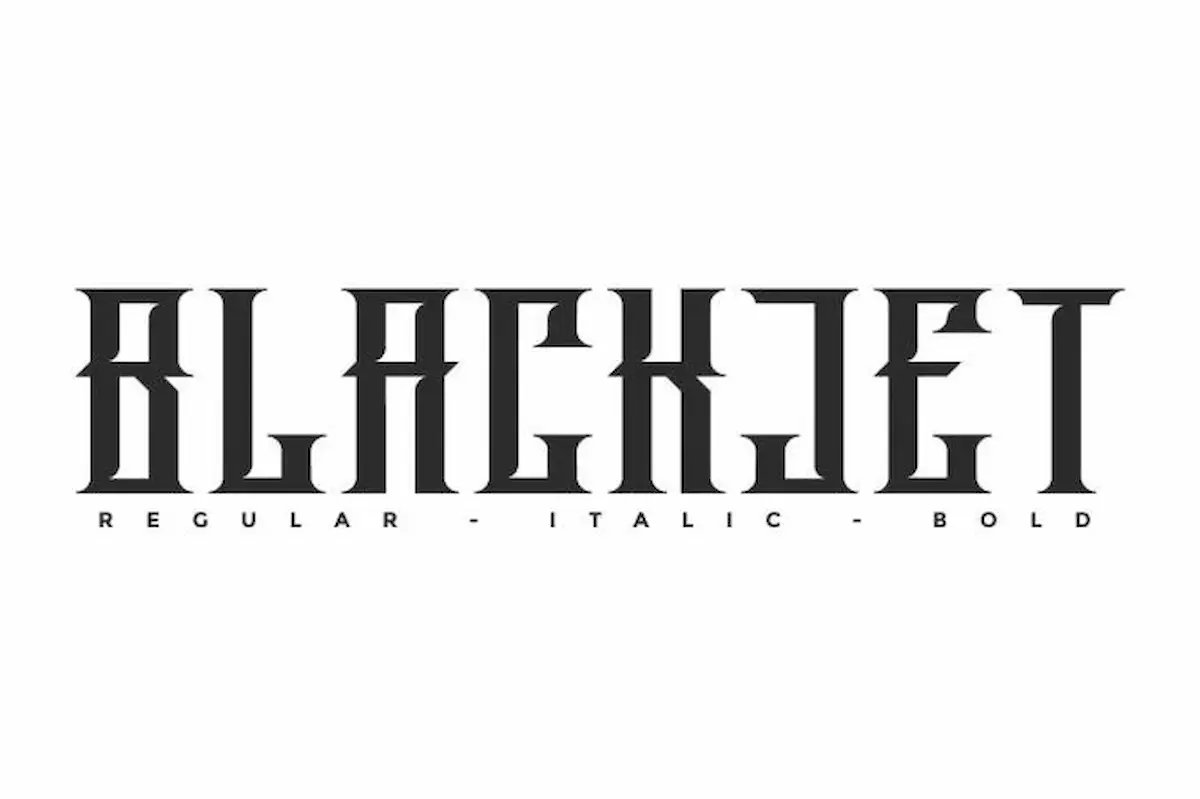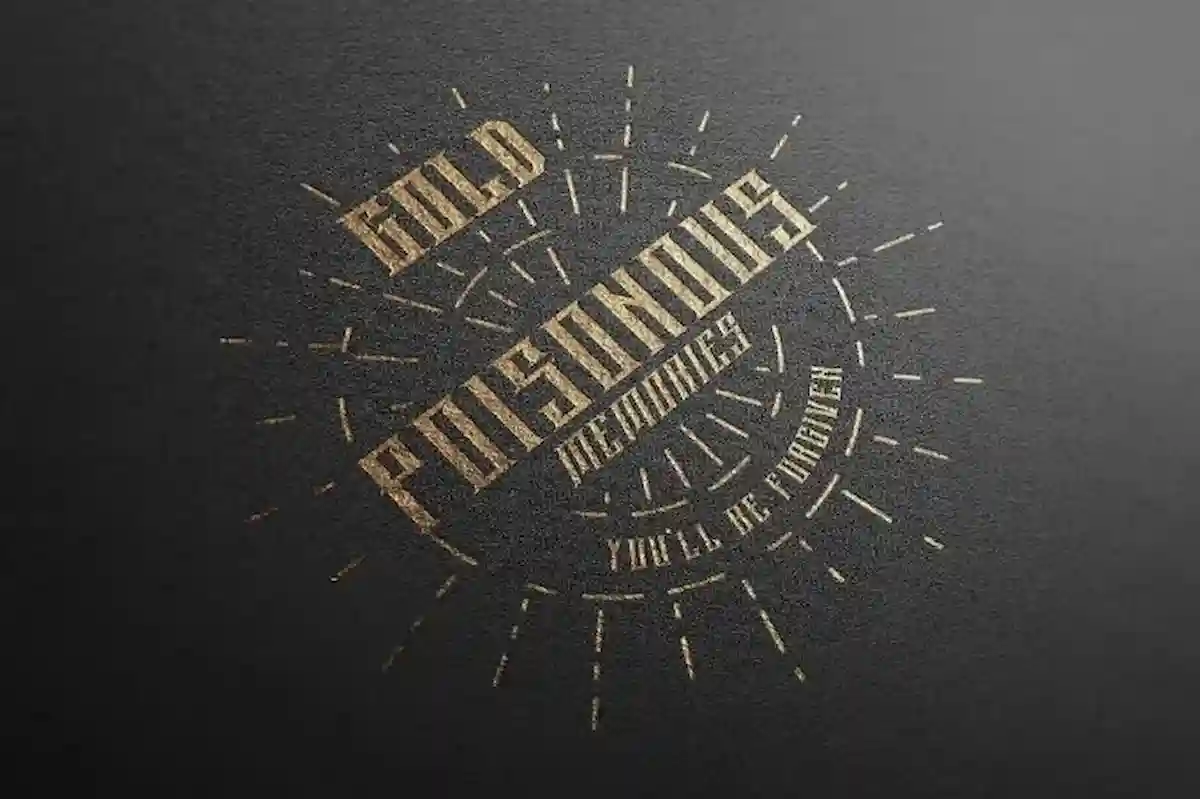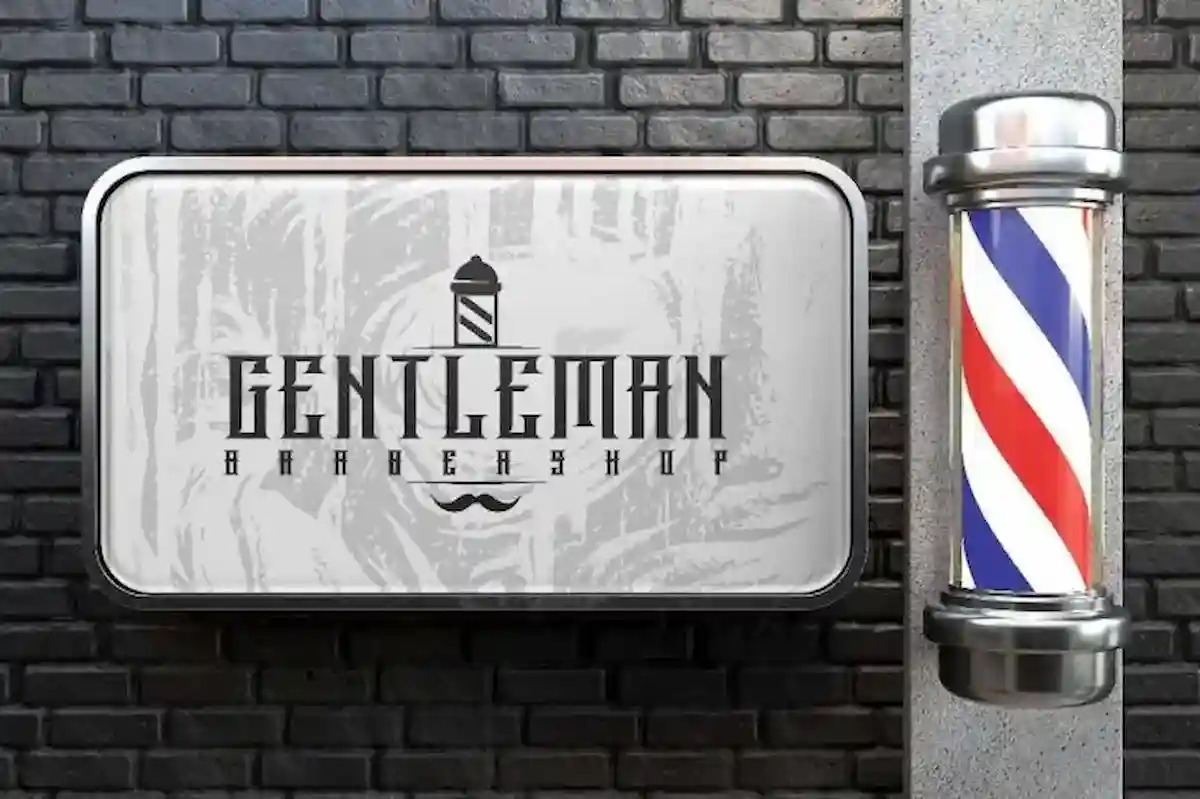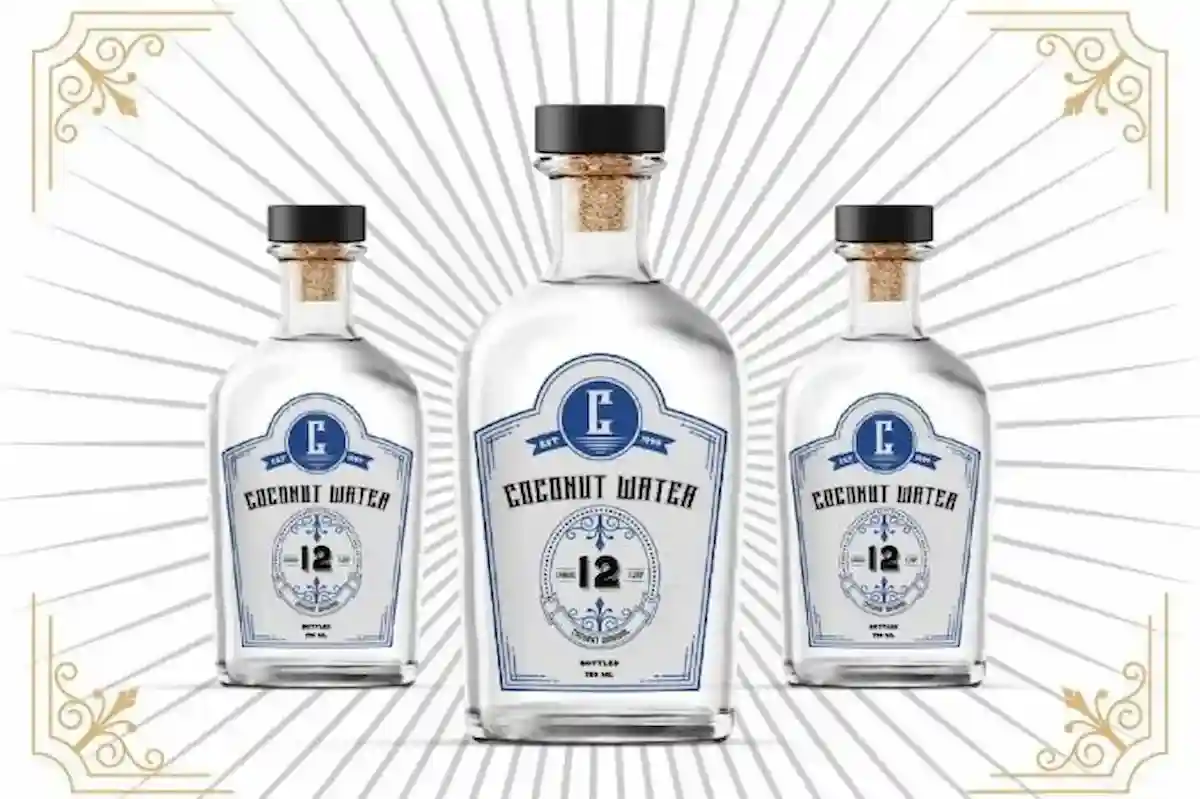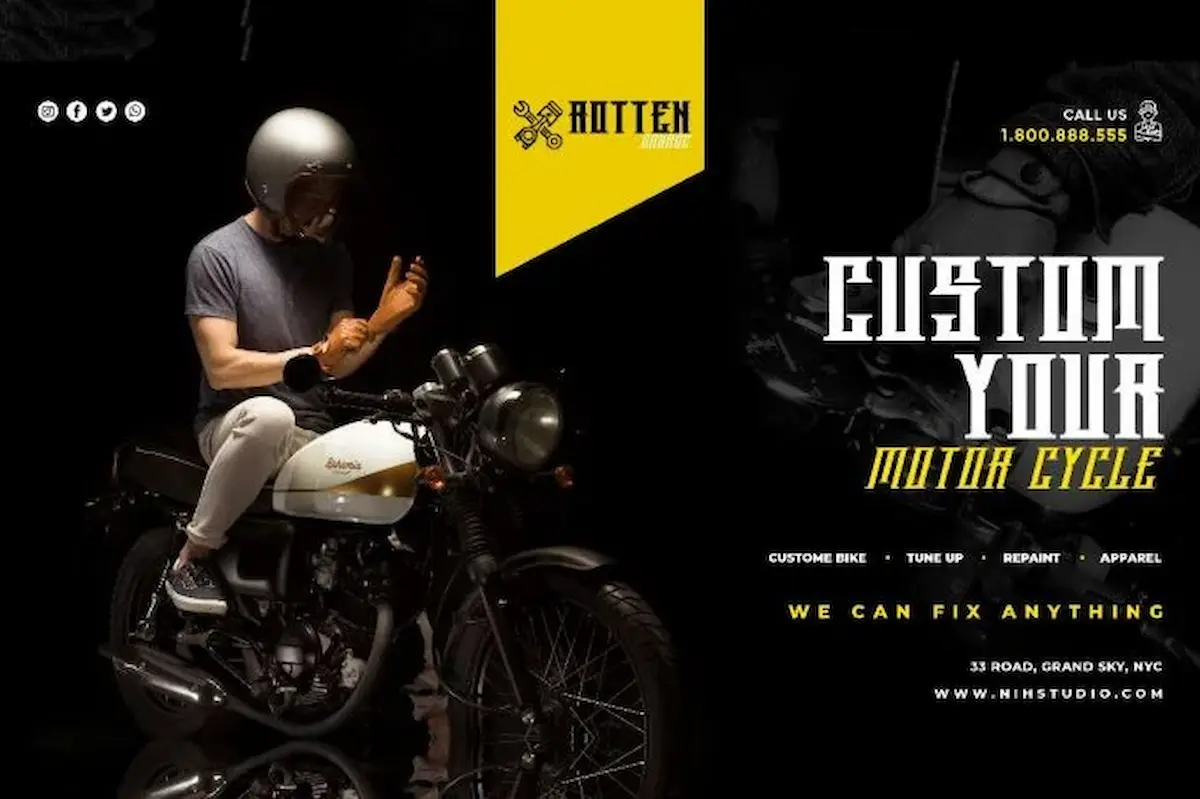
Blackjet Font is a strong display font with unique sharp edges. This font will be great for game industry, music, festival, motorsport, car, racing, barbershop or any other projects that need a strong masculine style.
Blackjet Font is an exclusive stylishly strong display font made by NihStudio 2021. This strong display font cones with unique sharp edges. This font will be great for game industry, music, festival, motorsport, car, racing, barbershop or any other projects that need a strong masculine style.This font family has a modern, sleek look with sharp lines on each character. Stunning Regular, Italic and Bold shape
Blackjet Font has three style options : Regular, Italic and Bold version. The fonts include ALL CAPS Uppercase Basic Character, Numerals and Punctuations. Captures the essence of typography in the past with a collection of original designs, which are wrapped with a contemporary impression so that they will not be left behind. Use Blackjet Font to create strong, vintage and classy typographic compositions at the same time.